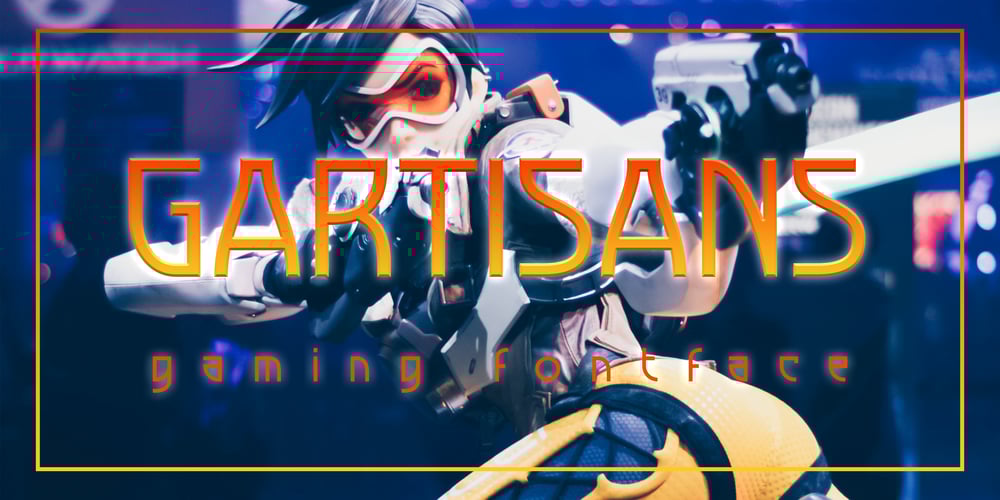
Gartisans Font Family was designed by Sugi Yanto and published by Sign Studio. Gartisans contains 1 styles and family package options. Gartisans are inspired by the appearance of games produced by Japan. Has a distinctive curves on the character (writing with Katakana). By using this font you will be able to feel the feel of the Katakana writing style (simple, clear, characterized). It is suitable for book cover design, poster, game UI, and logo making.